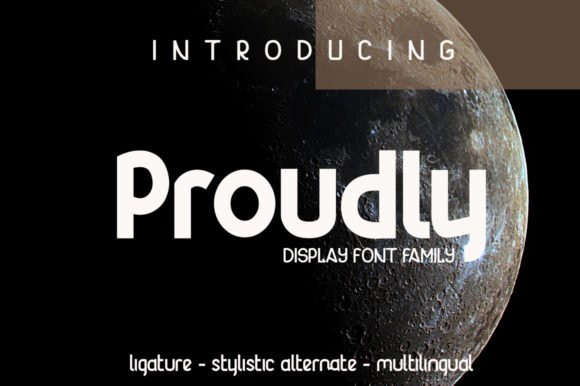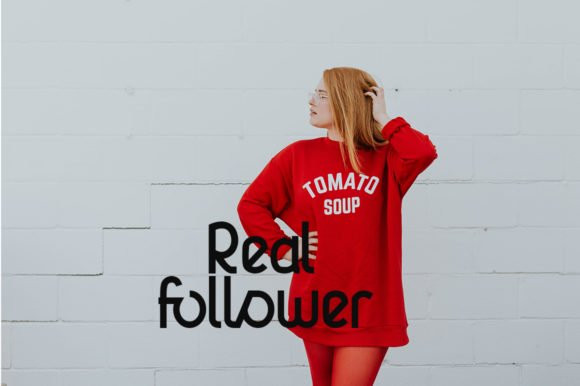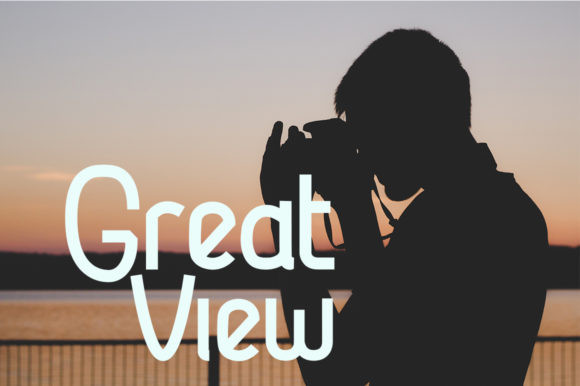
Proudly Font
Proudly is a simple, yet playful display font that features smooth curves and delivers a modern font experience. Get inspired by its unique approach to lettering.